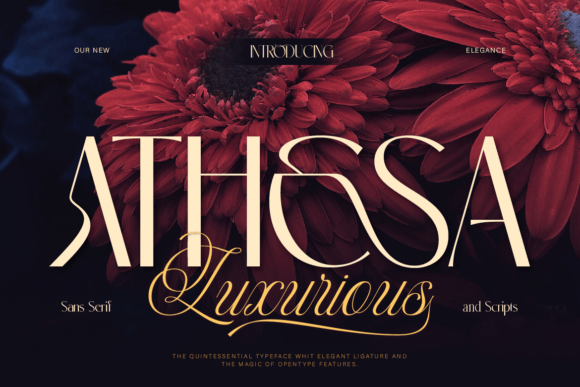
A New Era of Luxury Typography
Have you ever found yourself staring at a blank canvas, trying to bring your creative vision to life? The blank page can be daunting, but sometimes it’s in those moments of uncertainty that the perfect design emerges. For designers seeking to elevate their work to the next level, Athesa Luxurious Font is here to inspire. This stunning font duo seamlessly combines the sophistication of a modern sans serif with the romance of a feminine script, creating a breathtaking visual contrast that’s sure to leave a lasting impression.
Athesa Luxurious Font is the perfect tool for designers looking to add a touch of luxury and elegance to their work. Whether you’re creating high-end fashion branding, wedding invitations, or product packaging, this font offers the perfect balance of style and personality. With its stylish ligatures and alternates, every letter flows with purpose and poise, making it a valuable addition to any designer’s toolkit.
Athesa Luxurious Font Key Features
• Unique Characteristics: This luxurious font features intricate details, elegant curves, and ornate flourishes, making it perfect for creating high-end designs, such as luxury branding, invitations, and certificates.
• Customization Options: The font includes a range of customization options, such as ligatures, swashes, and ornaments, allowing designers to add a personal touch to their designs.
Athesa Luxurious Font Review
Overall, I’m quite impressed with the Athesa Luxurious Font. ✨ Its elegant and sophisticated design makes it perfect for high-end branding, luxury products, and premium websites. The font’s sleek lines and refined curves give it a touch of sophistication that’s hard to resist.
Here are some of the things that work well with Athesa Luxurious Font:
• ✨ Elegant and sophisticated design that’s perfect for luxury branding
• ✨ Highly legible, even at small font sizes
• ✨ Offers a range of styles and weights to suit different design needs
• ⚠️ Limited language support, which may be a concern for multilingual designs
• ⚠️ Some users may find the font too ornate or over-the-top for certain design applications
Overall, I’d give the Athesa Luxurious Font 4 out of 5 stars. It’s a beautiful and sophisticated font that’s perfect for luxury branding and high-end design projects. However, its limited language support and potential for over-ornateness may be drawbacks for some users.
Tips for Getting the Most Out of Athesa Luxurious Font
Use Athesa Luxurious Font for creating luxurious and elegant designs, such as:
• Wedding invitations and stationery
• High-end product packaging
• Corporate branding and marketing materials
Are there any specific font features or characteristics that I should be aware of?
The Athesa Luxurious Font is designed to mimic the look of high-end luxury typography, with features such as intricate details, ornate flourishes, and a classic serif design. It’s ideal for projects that require a sophisticated, elegant look. Note that the font’s width and spacing may be adjusted to optimize readability and aesthetics.